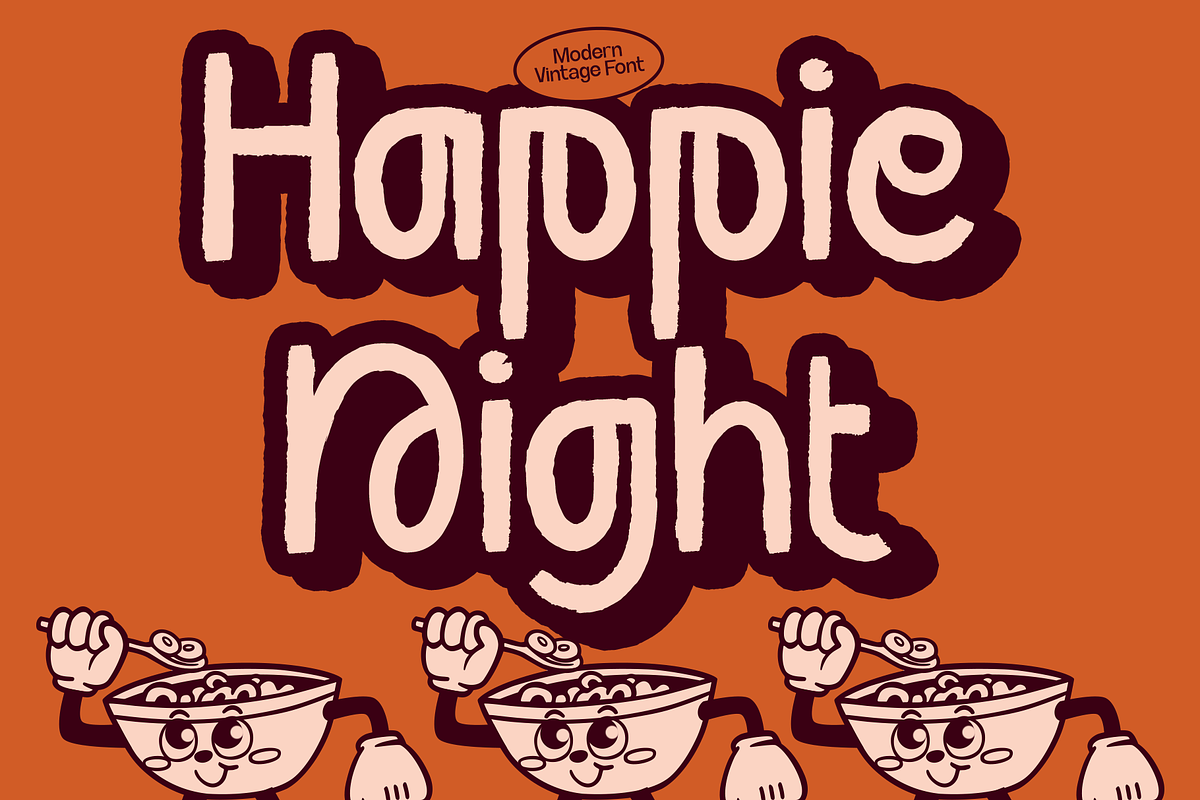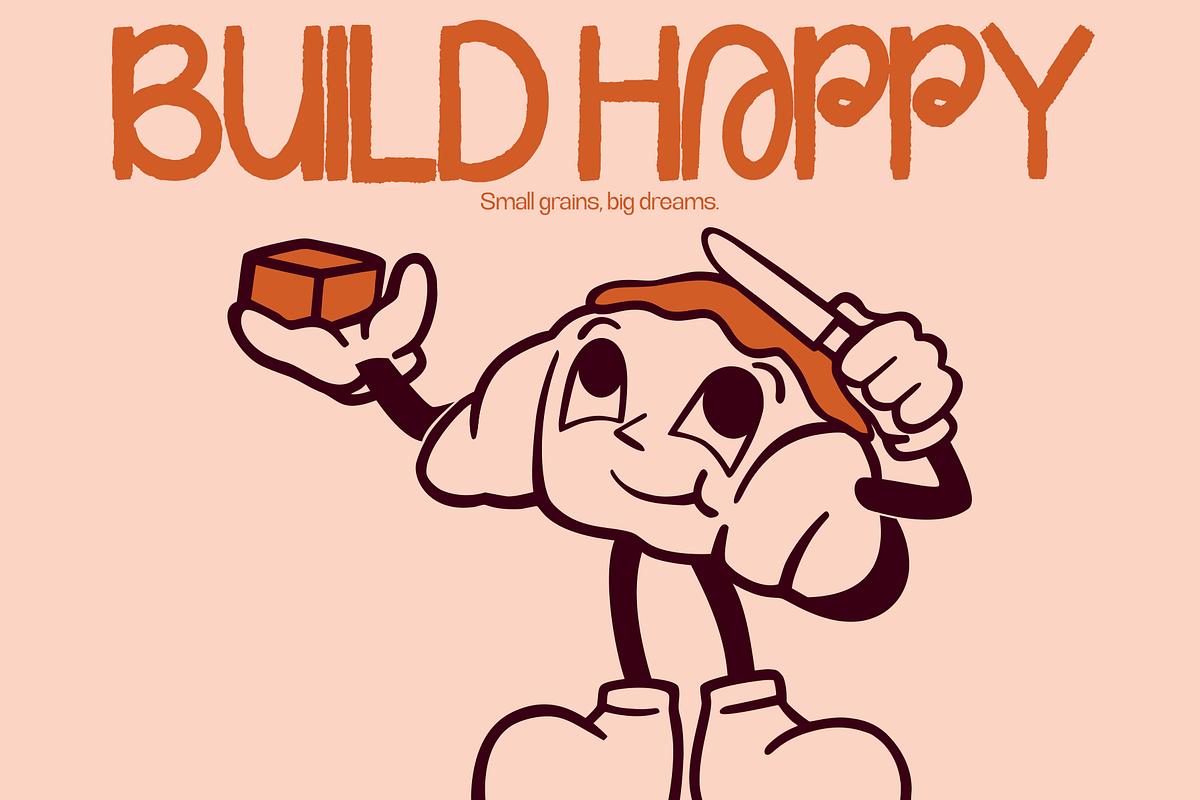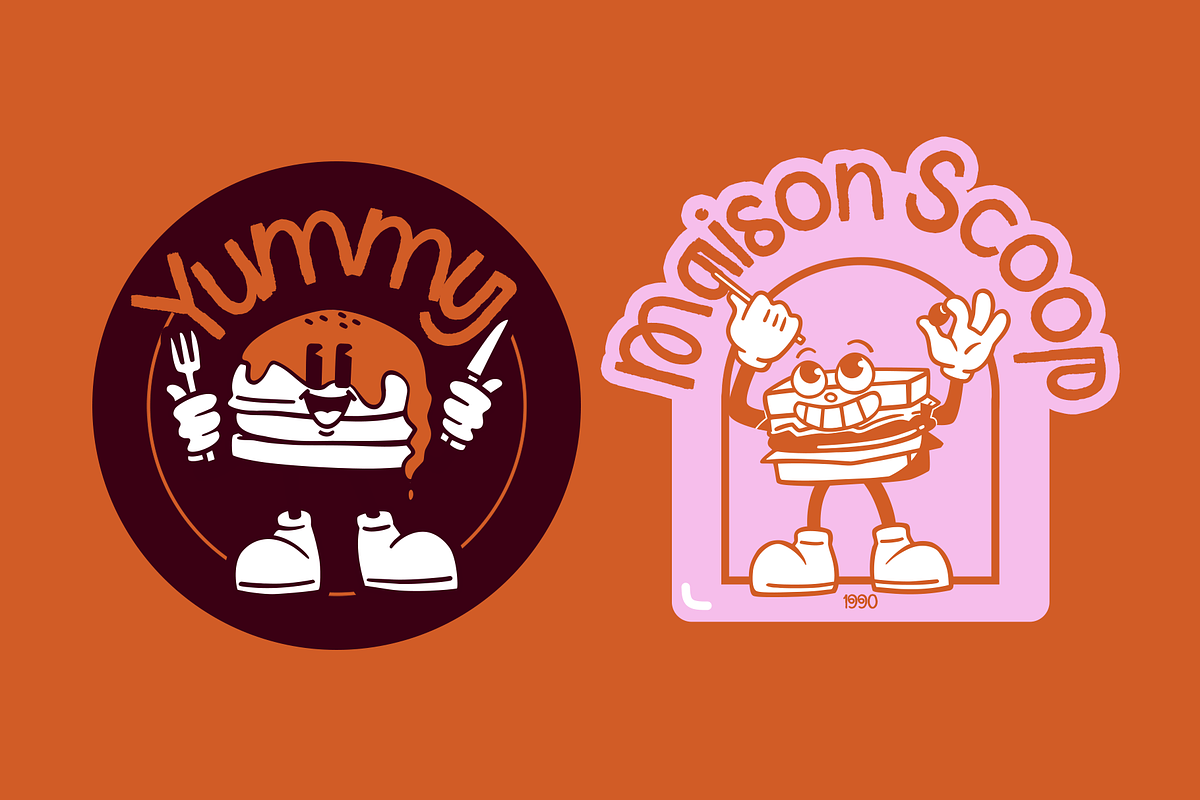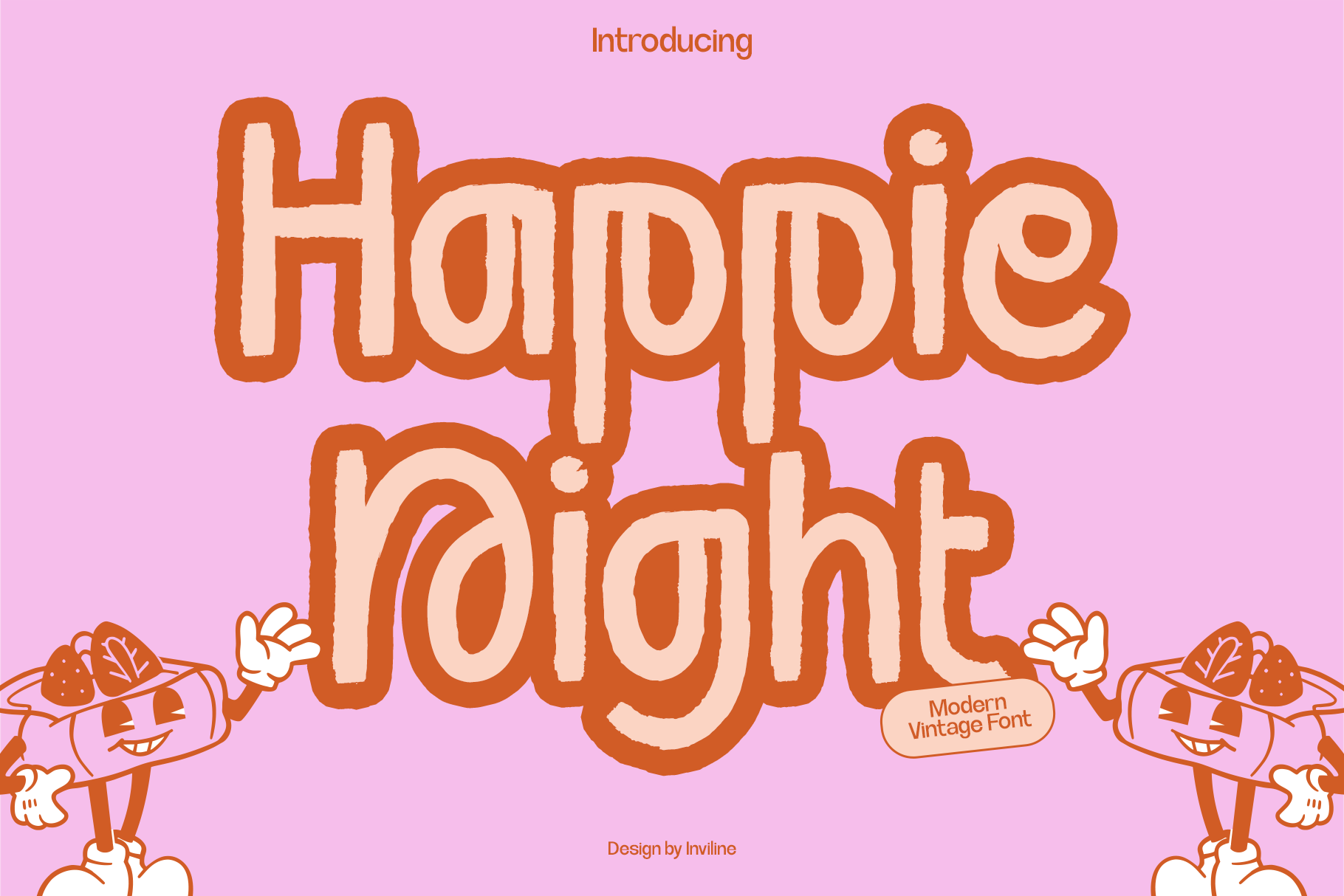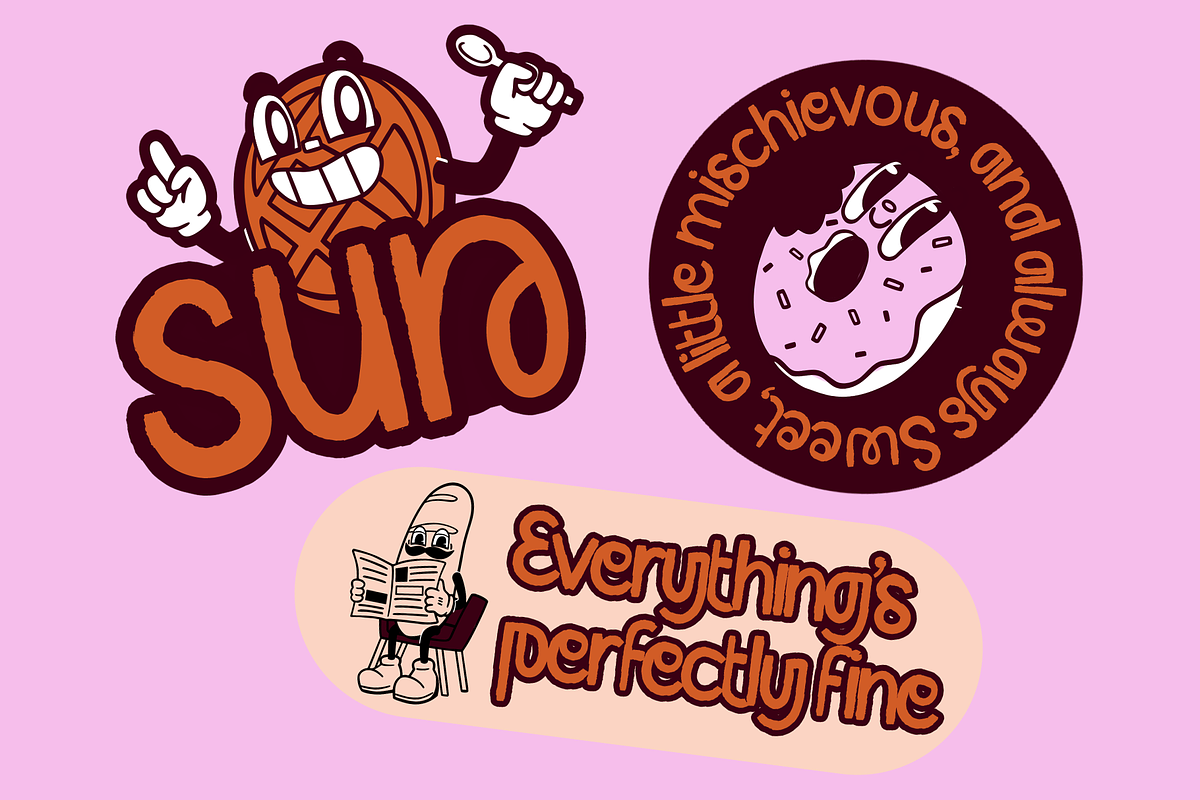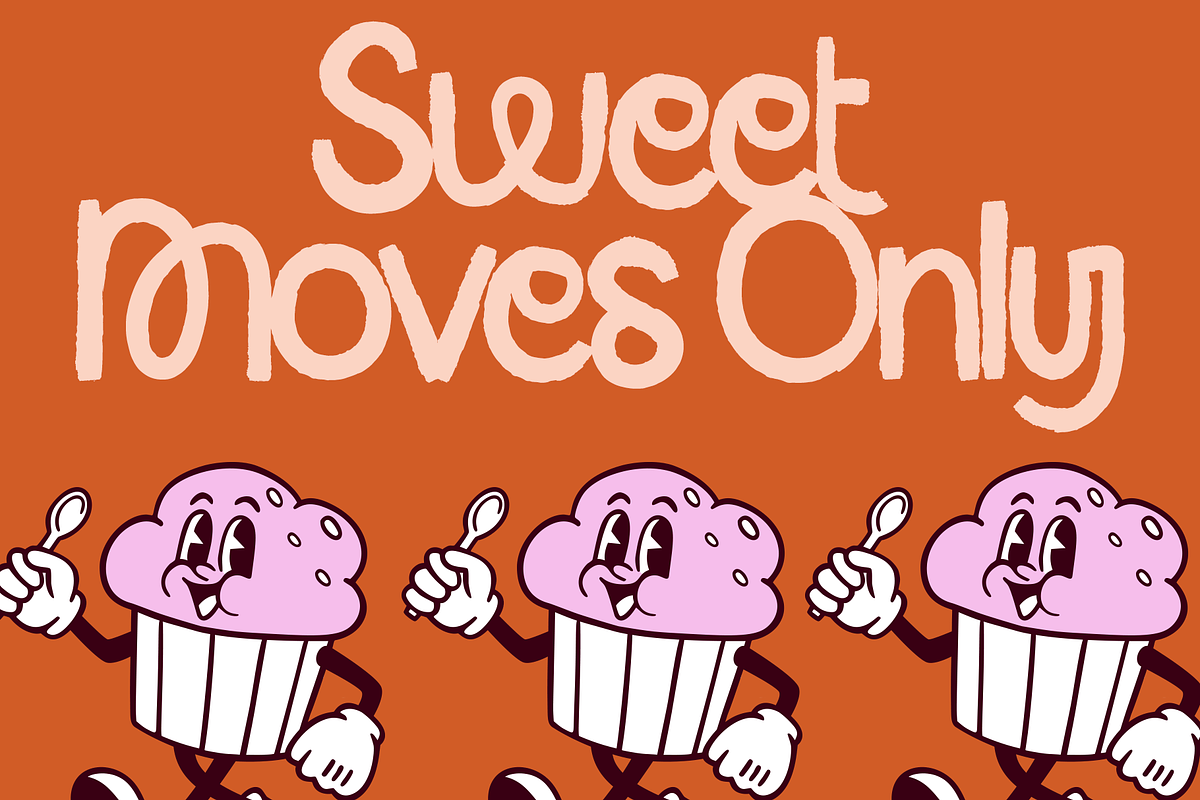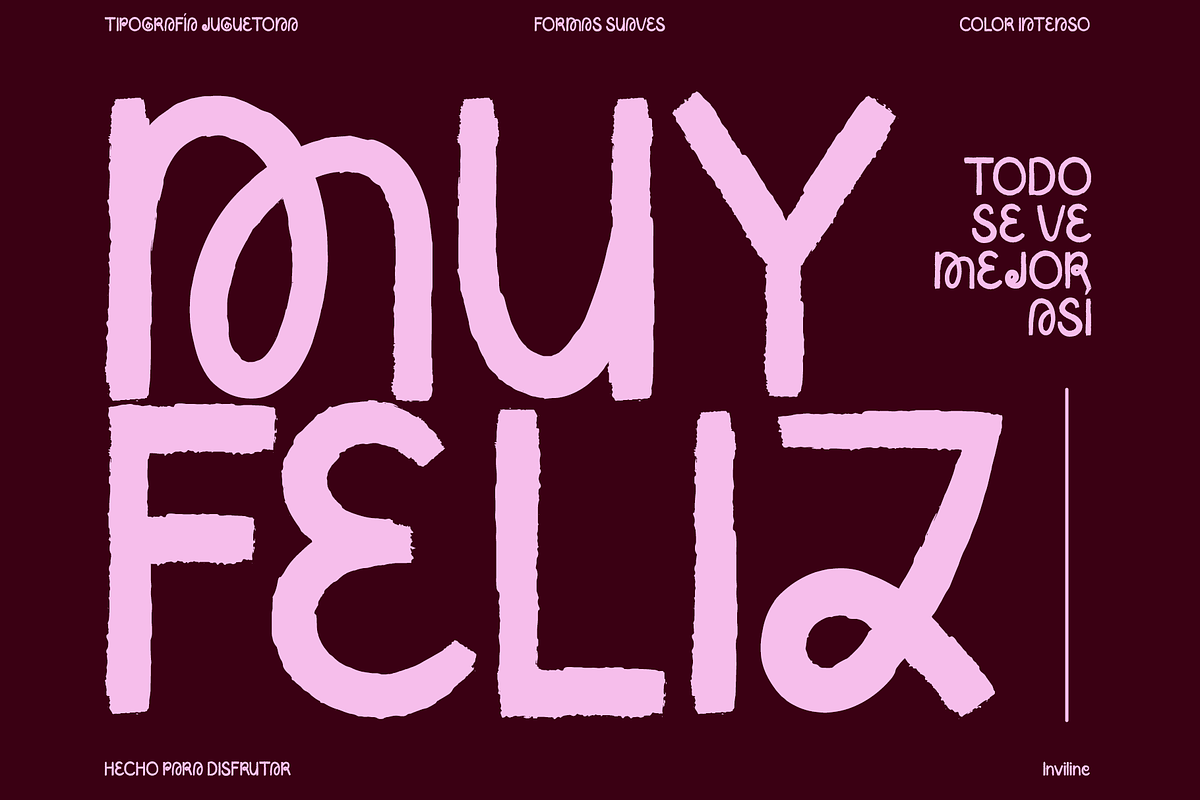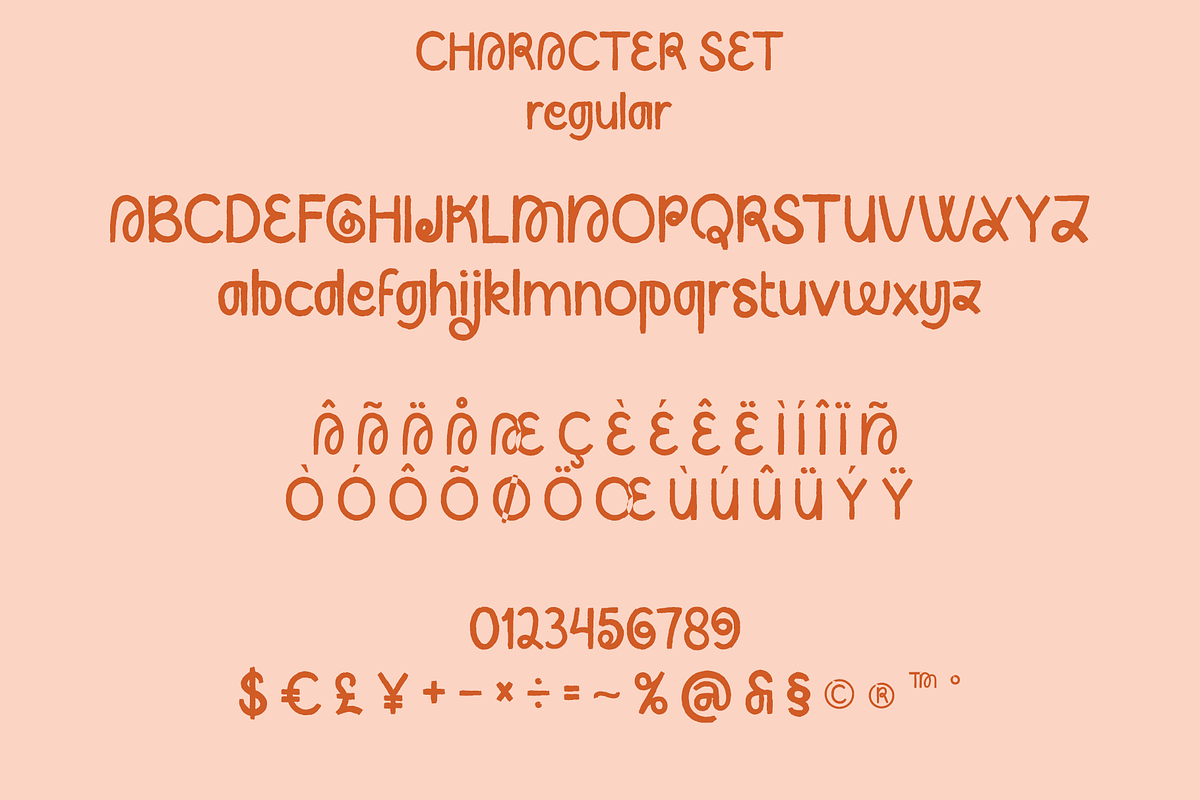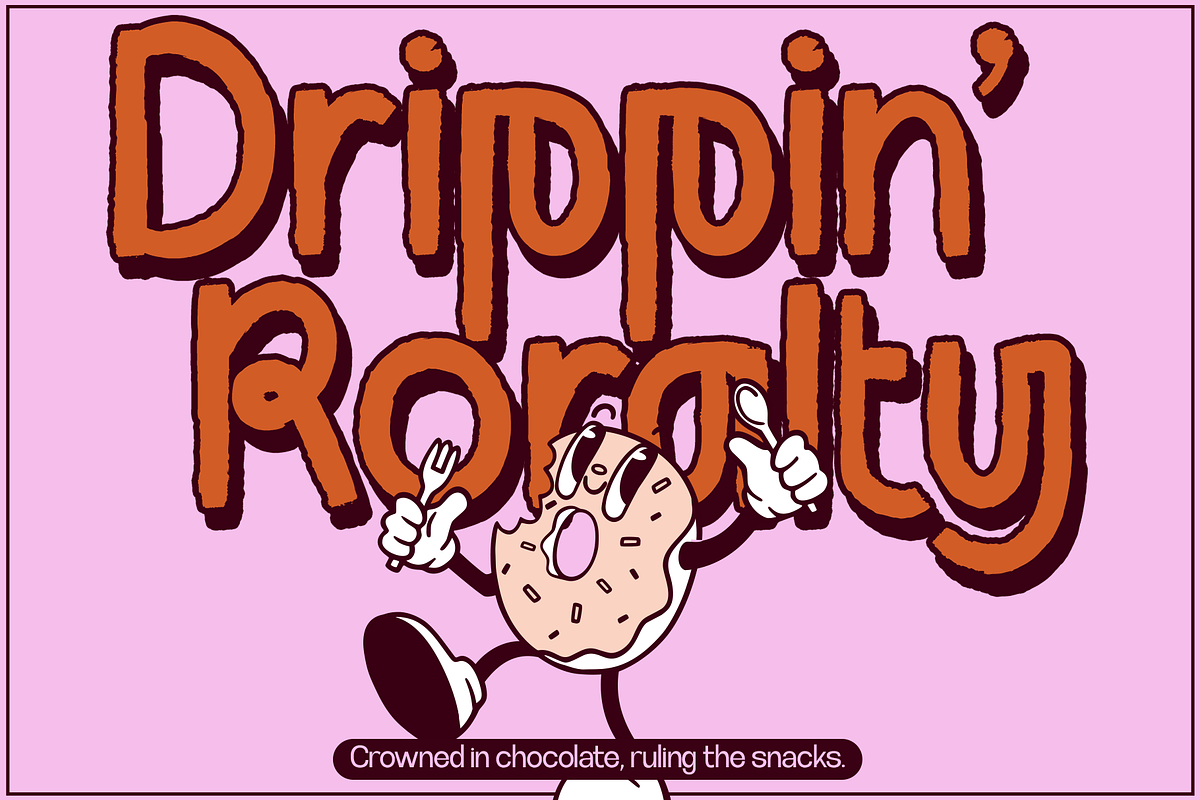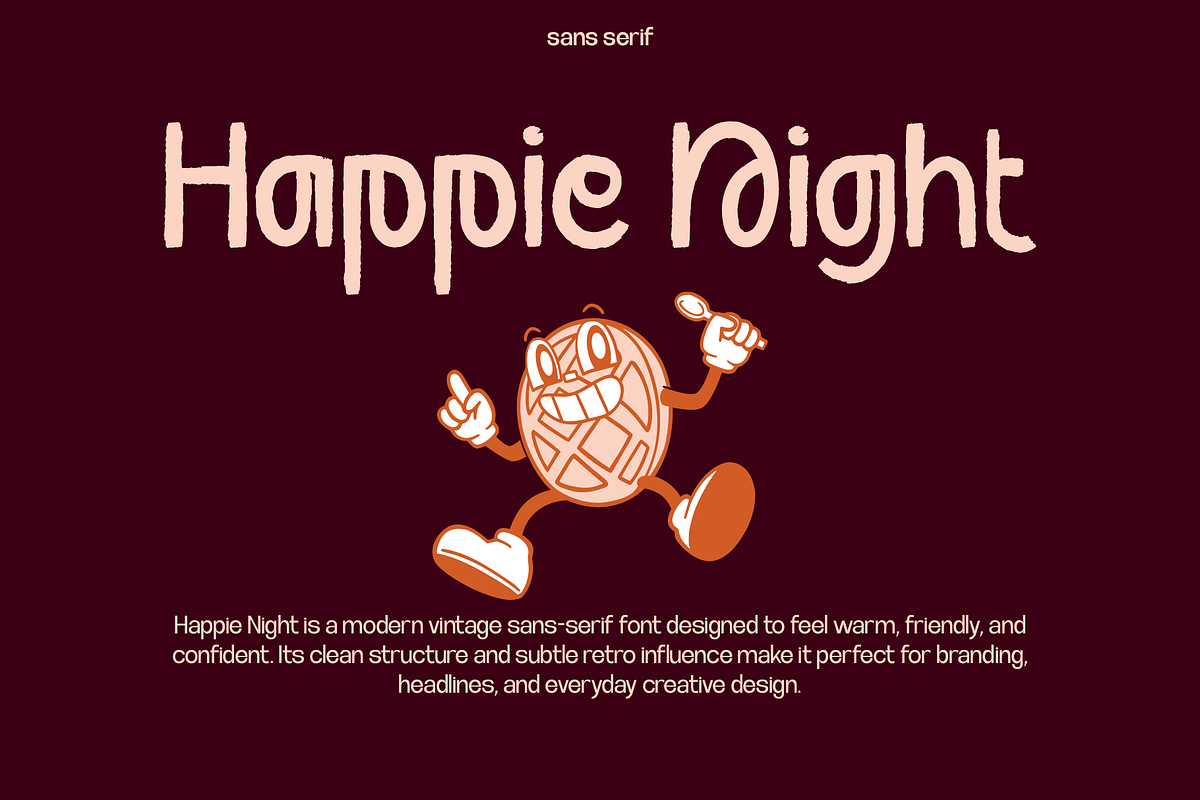
Happie Night - Playful Display Font
Happie Night is a playful modern-vintage display font inspired by retro cartoons, cheerful snack packaging, colorful poster lettering and nostalgic pop graphics. Its bold rounded forms, soft irregular edges and lively proportions create a friendly personality that immediately attracts attention.
Designed to feel fun, warm and slightly handmade, Happie Night is ideal for projects that need an upbeat, youthful and memorable typographic voice.
Happie Night combines chunky display lettering with an organic retro finish. The letters have a strong visual presence while maintaining a soft and approachable character, making the font suitable for prominent headlines, logos, product names and short promotional messages.
Its playful structure works especially well with bright colors, outlined treatments, shadows, illustrations and cartoon-style compositions. Use it as the main focal typeface or pair it with a simple sans-serif font for supporting information.
Playful modern-vintage display style
Bold and rounded letterforms
Soft irregular handmade edges
Retro cartoon-inspired personality
Friendly and highly recognizable appearance
Complete numerals
Standard symbols and punctuation
Suitable for short headlines and display text
Works well with outlines, shadows and layered effects
Designed for both print and digital projects
Easy to combine with illustrations and character graphics
Strong readability at medium and large sizes
Ideal For / Use Cases
Retro poster designs
Cartoon-inspired branding
Children’s product packaging
Snack and beverage branding
Restaurant and café promotions
Dessert shop identities
Sticker designs
Logo design
Product labels
YouTube thumbnails
Promotional banners
Event posters
Birthday invitations
Greeting cards
Editorial headlines
Children’s books
Classroom materials
Digital products
Printable artwork
Merchandise graphics
Album and podcast covers
Food menu designs
Creative advertising
Playful visual identities
Use the font at medium or large sizes for the strongest visual impact. Experiment with contrasting outlines, offset shadows, bright color combinations and layered effects to emphasize its retro cartoon personality.
Pair Happie Night with a clean sans-serif font for body copy, captions and supporting information. Keep longer paragraphs in a simpler typeface, as Happie Night is primarily designed for headlines and short display text.